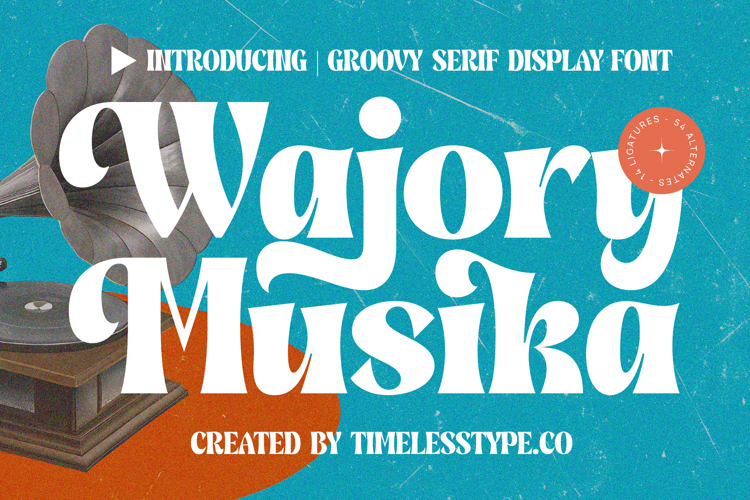
Wajory Musika - Serif Display
Unleash the undeniable charm of a bygone era with Font Wajory Musika - Serif Display. This exceptional display serif font masterfully blends retro elegance with contemporary flair, creating a distinctive visual presence. Its bold, expressive letterforms and smooth curves evoke nostalgic sophistication, ideal for projects demanding character and clarity. Elevate your design with a typeface that truly stands out.
Crafted with meticulous attention, Font Wajory Musika - Serif Display features a striking high-contrast design for both readability and aesthetic impact. Its generous curves and robust serifs lend confident playfulness. An impressive array of ligatures and alternates offers unparalleled creative freedom for bespoke headlines and branding elements, ensuring every composition feels dynamic and unique.
Beyond its aesthetic appeal, Font Wajory Musika - Serif Display is engineered for global reach. With its extensive multilingual support, Font Wajory Musika - Serif Display adapts seamlessly across global markets, making it incredibly versatile for international projects. This comprehensive language coverage ensures your message resonates with diverse audiences worldwide, establishing a consistent and professional brand identity.
Ideal for making a statement, Font Wajory Musika - Serif Display is perfect for luxury branding, eye-catching editorial, innovative packaging, and impactful social media. Excelling in headlines and logotypes, it offers a powerful yet inviting typographic voice. Invest in this expressive display font to infuse your projects with unmistakable character and timeless appeal.